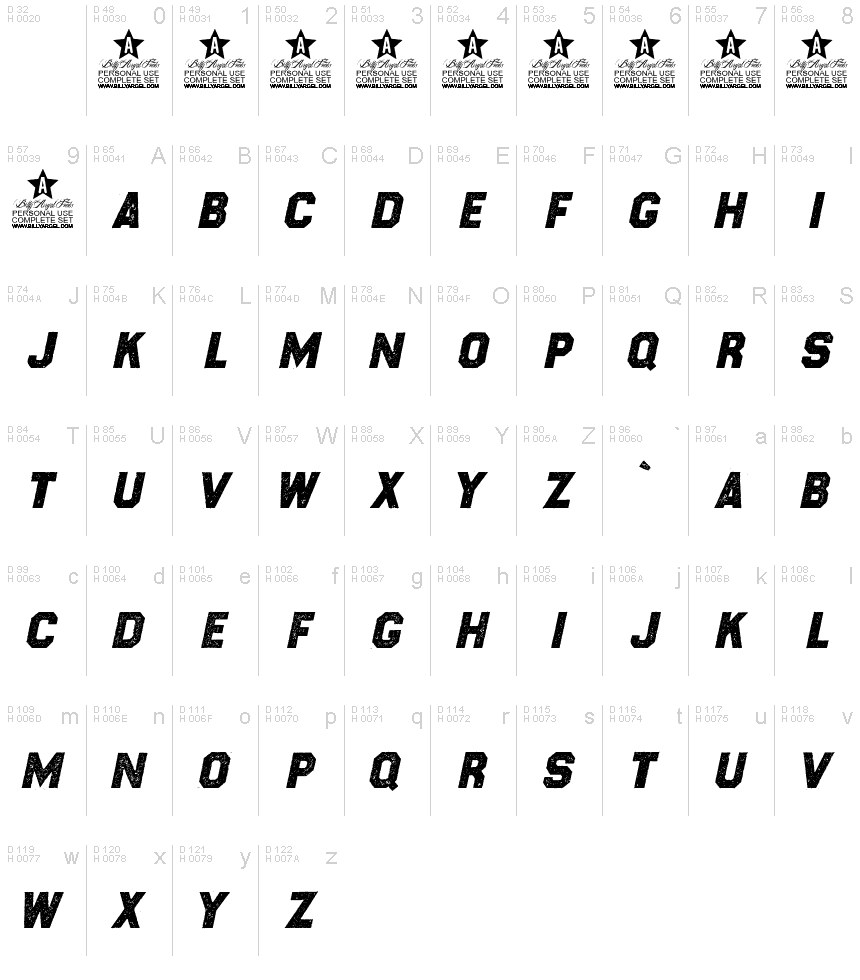
Crossroads Italic font is cool eroded typeface designed by Billy Argel.
Prezentacja i próbka wizualna czcionki CROSSROADS ITALIC PERSONAL USE Regular
CROSSROADS ITALIC PERSONAL USE